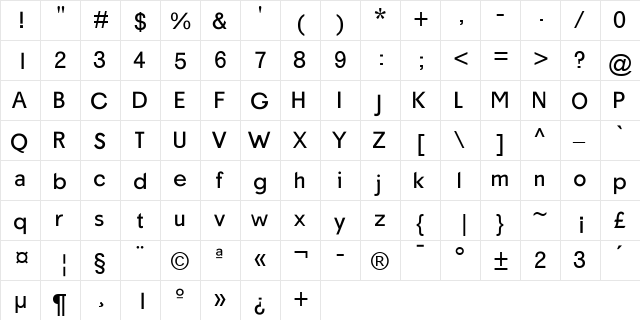
Macro Regular
Design Context for Macro Typeface
Macro is a composed and adaptable typeface that performs quietly and consistently across a wide range of design contexts.
Pro Tip: Pair Macro with a font of contrasting weight or personality to build a more expressive typographic hierarchy.